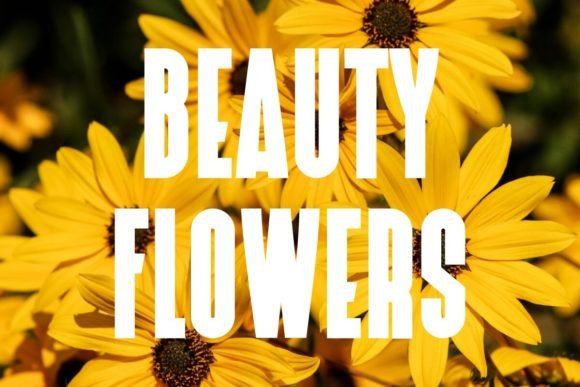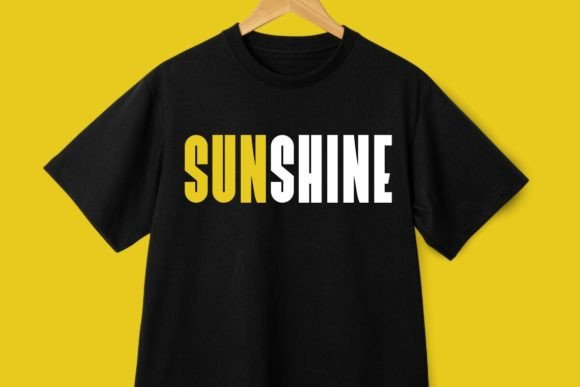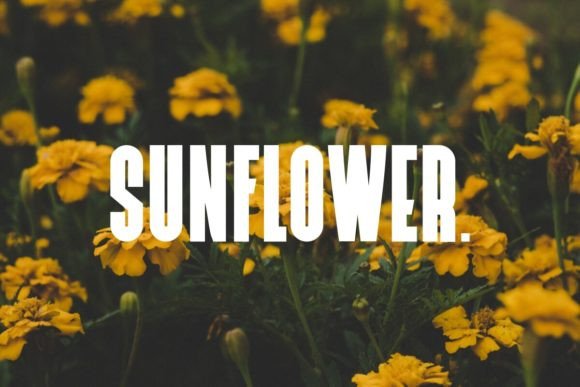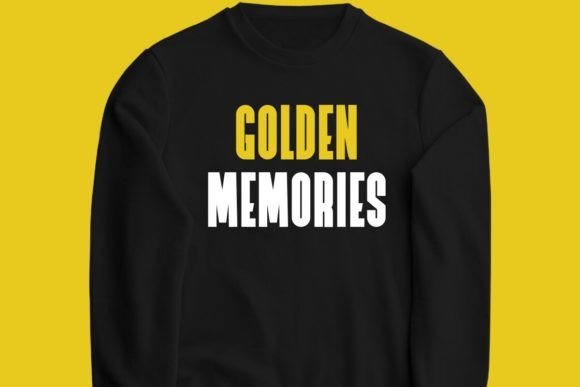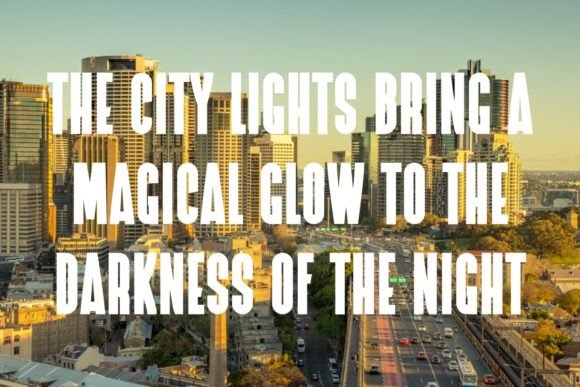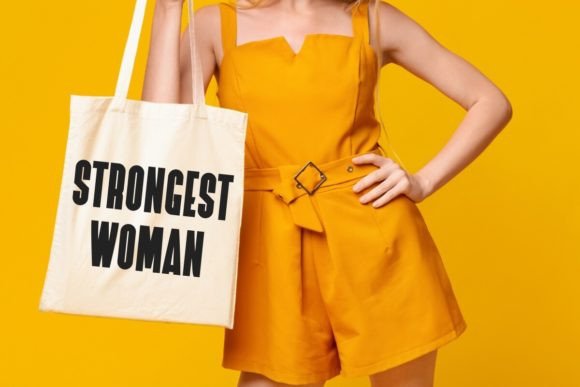
Introduction to Overbold Font
As a designer, there’s nothing quite like that moment when your creative vision comes to life. The rush of excitement, the thrill of seeing your ideas take shape, and the sense of pride that comes with knowing you’ve created something truly special. But what makes a design truly stand out? Is it the colors, the composition, or something more? For many designers, the key to a successful design lies in the font.
Enter the Overbold Font, a game-changing design resource that’s set to take your creative projects to the next level. With its clean, condensed sans-serif style, this font is perfect for creating striking backgrounds, posters, quotes, and more. Whether you’re working on a high-quality print project or designing a digital asset, the Overbold Font is sure to make a lasting impression.
Key Features of Overbold Font
- High-quality font designed for creative projects, offering a unique and bold look.
- Transparent background, making it easy to overlay on images or other design elements.
- High-resolution font, suitable for print and digital use, with a resolution of 300 DPI or higher.
- Perfect for designers and artists working on creative projects, such as logos, posters, and graphics.
- Unique characteristics, including an overbold style that adds a touch of personality to any design.
Honest Review: Overbold Font
I recently had the chance to work with the Overbold Font, and I have to say, it’s been a game-changer for my design projects. This high-quality font is perfect for any creative project that requires a bold, eye-catching look.
Here are some of the things that I love about the Overbold Font:
- ✨ High-quality design that looks great at any size
- ✨ Versatile and can be used for a wide range of creative projects
While the Overbold Font is an excellent choice for many designers, there are a few limitations to be aware of:
- ⚠️ Limited character set, which may not be ideal for projects that require a wide range of characters
- ⚠️ May not be suitable for projects that require a lot of fine-tuned control over font sizes and styles
Overall, I’m really impressed with the Overbold Font. It’s a great design resource that’s perfect for designers looking for a high-quality, bold font to add some visual interest to their projects.
Tips for Getting the Most Out of Overbold Font
Use the Overbold Font in combination with a transparent background to create a high-quality design that stands out. You can also use it as a design resource for your creative project by pairing it with other bold fonts.
The Overbold Font is perfect for headings, titles, and other text elements where you want to make a statement. It’s also great for creating eye-catching graphics and posters for your design project.